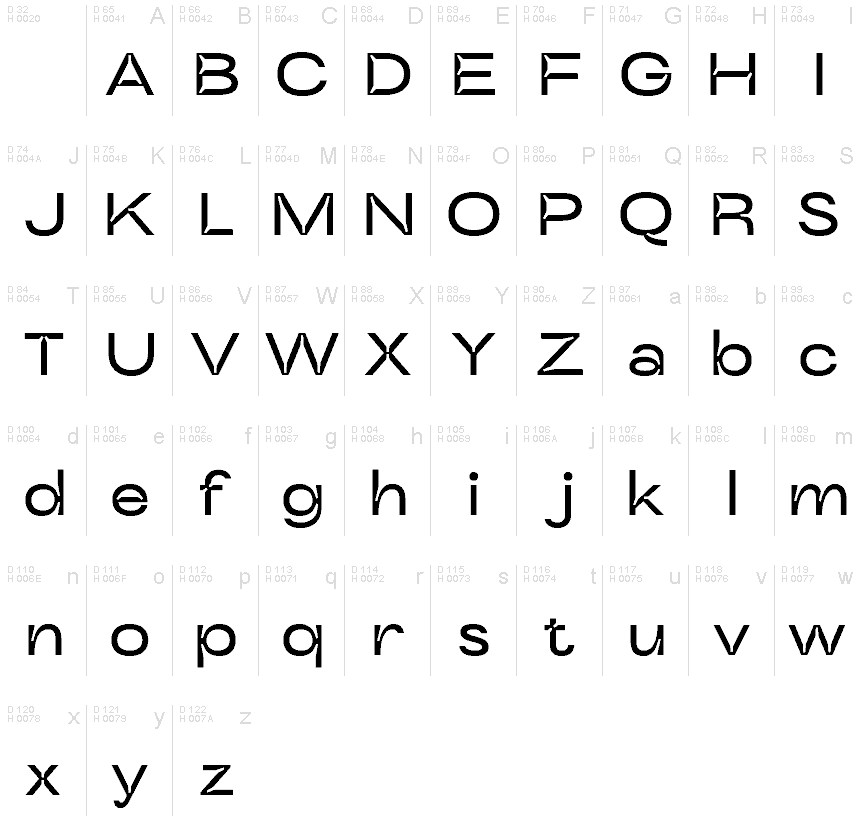
CS Beatrix Demo Regular
CS Beatrix font by Craft Supply Co. is an expanded sans serif font with a modern, elegant look. The characters feature geometric influences, manifested through the straight lines and seamless curves that build them up. Enjoy presenting any text you set in this font with the utmost style and professionalism regardless of its size.
Compatible projects greatly benefit from a clean impressive appearance; imagine it onboard magazines, newspapers, resume titles, business cards heading text sections… Web use is equally possible: UI/UX development or visual upgrade of existing websites could make online shops or service provider pages stand out among competitors!